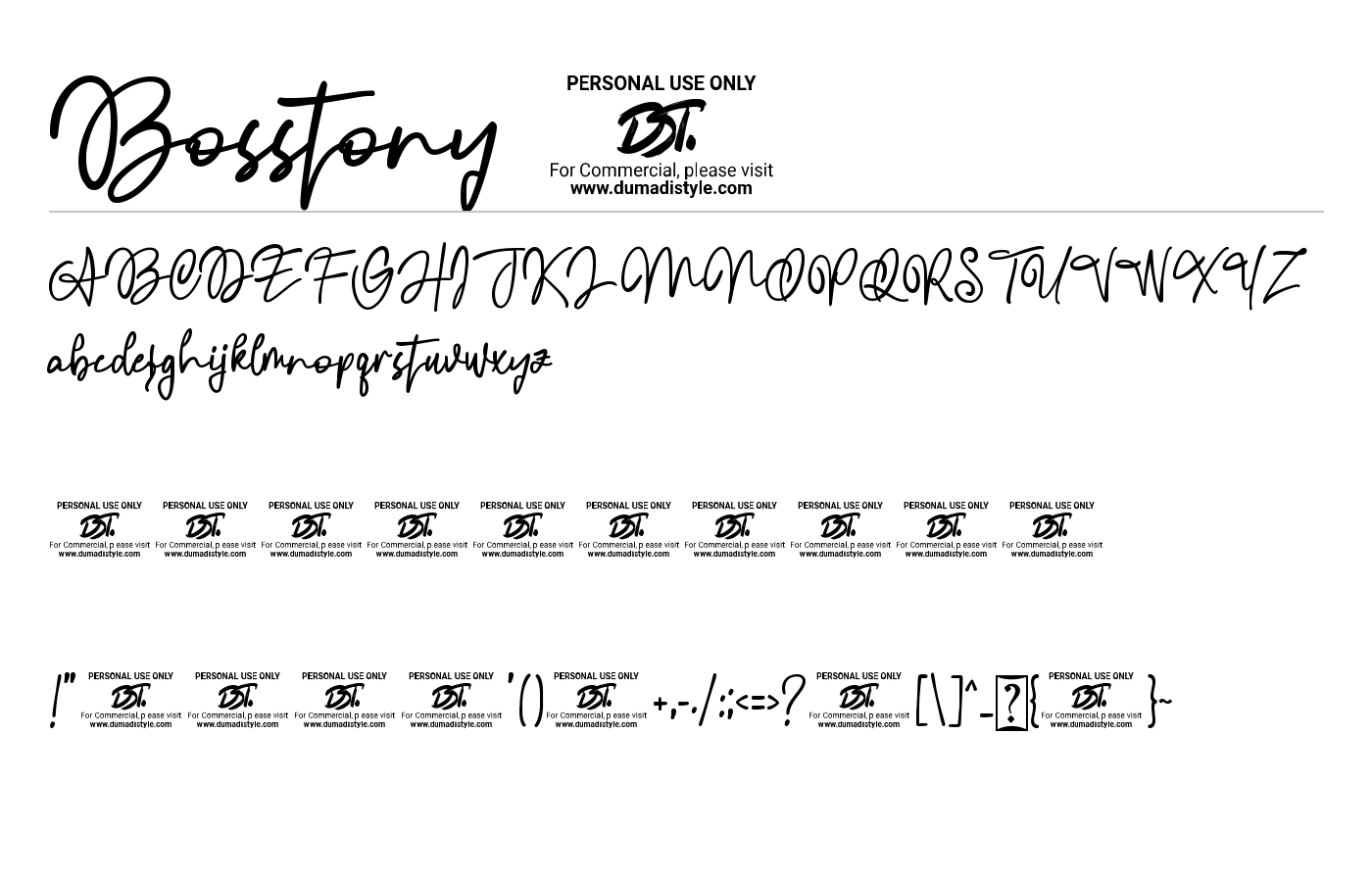
Bosstony 1 is a playful and elegant script font with a hand-drawn, casual feel. Its smooth, flowing strokes and varying line thicknesses give it a lively personality, making it ideal for creative branding, invitations, and modern editorial use where a personal, stylish touch is desired. This font works best in headlines or logos that want to convey charm and approachability.
Bosstony 1 Font
About Bosstony 1 Font
| Font family | Bosstony 1 Font |
| Designer | Toni Dzulham |